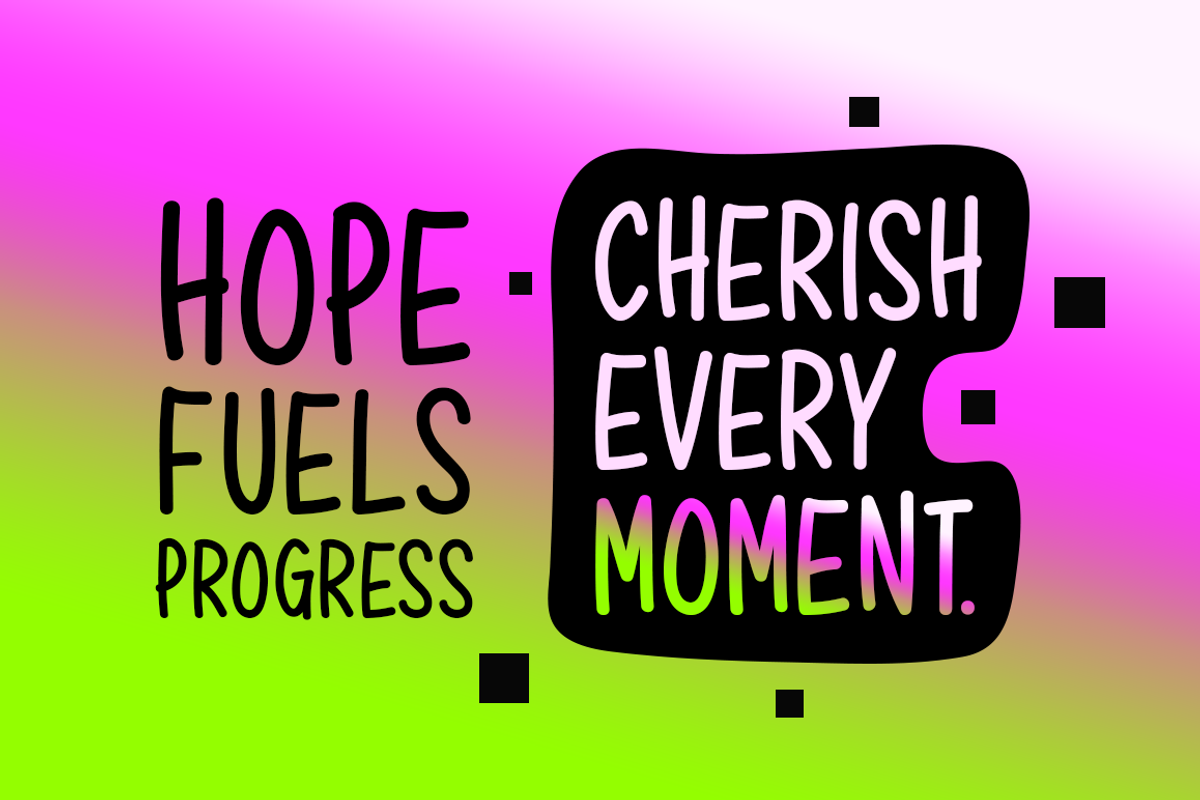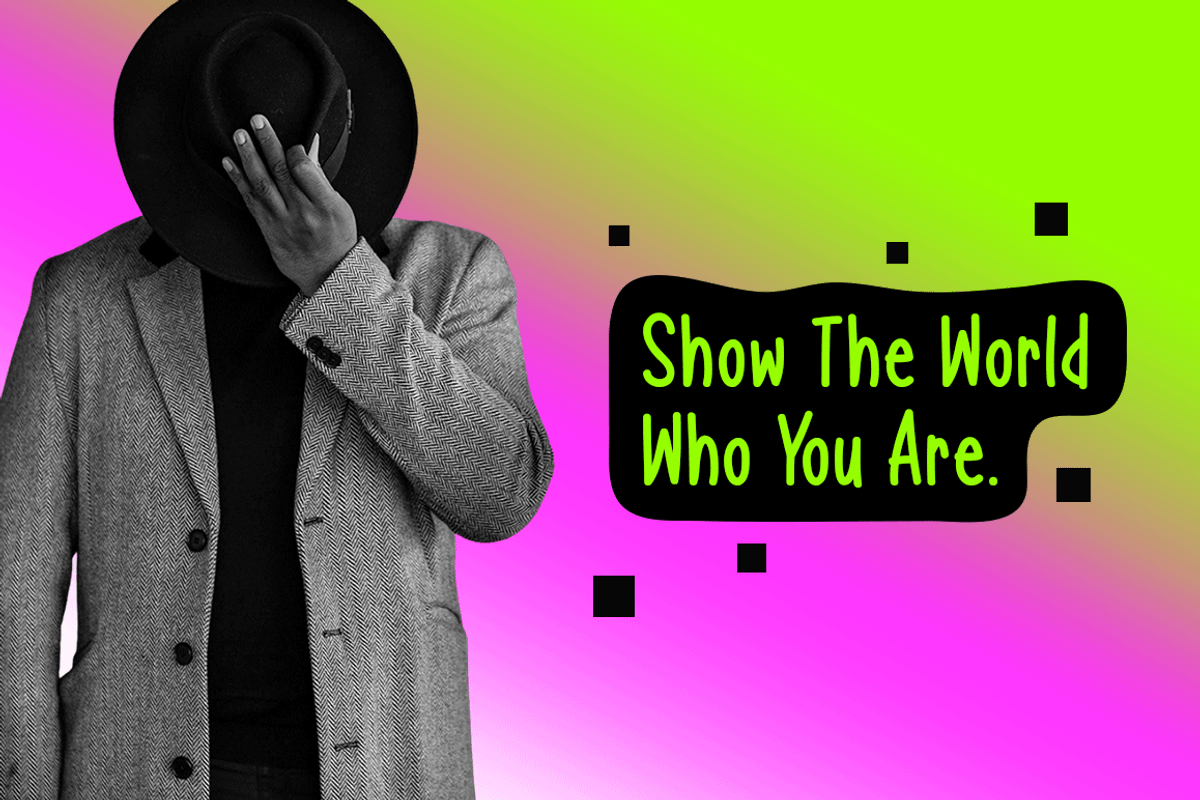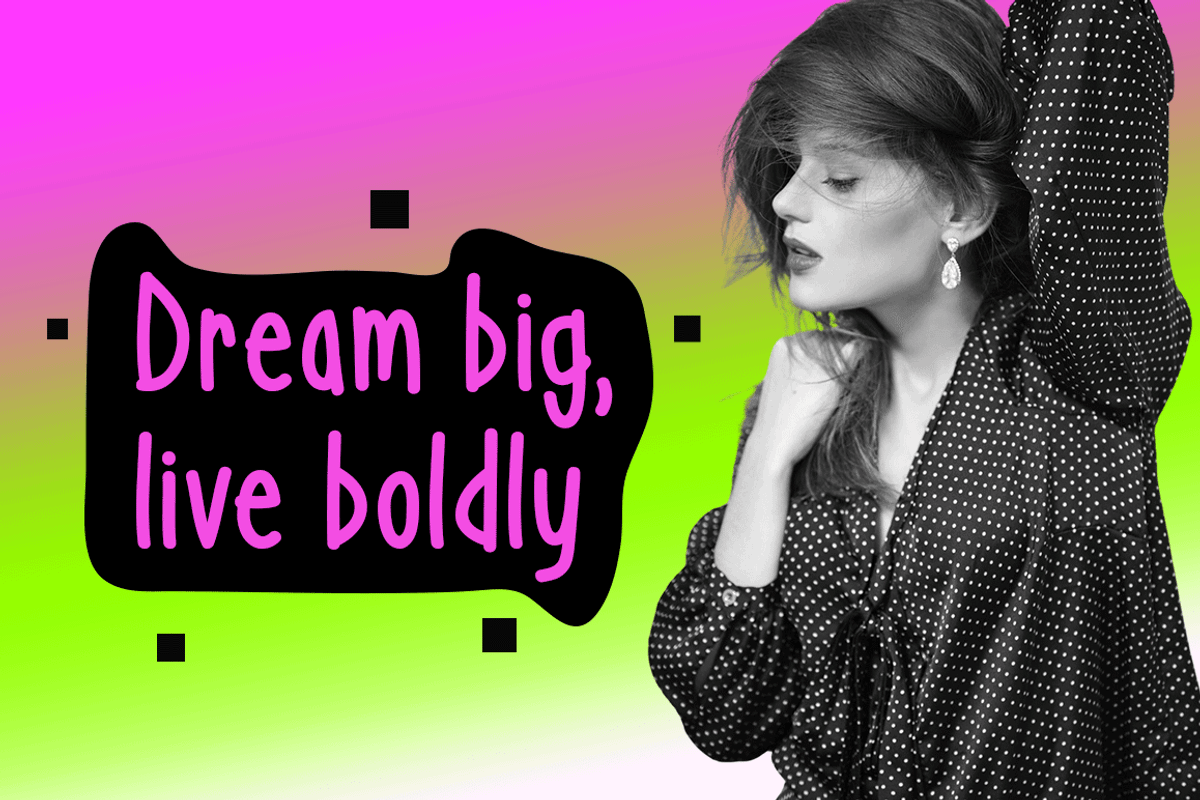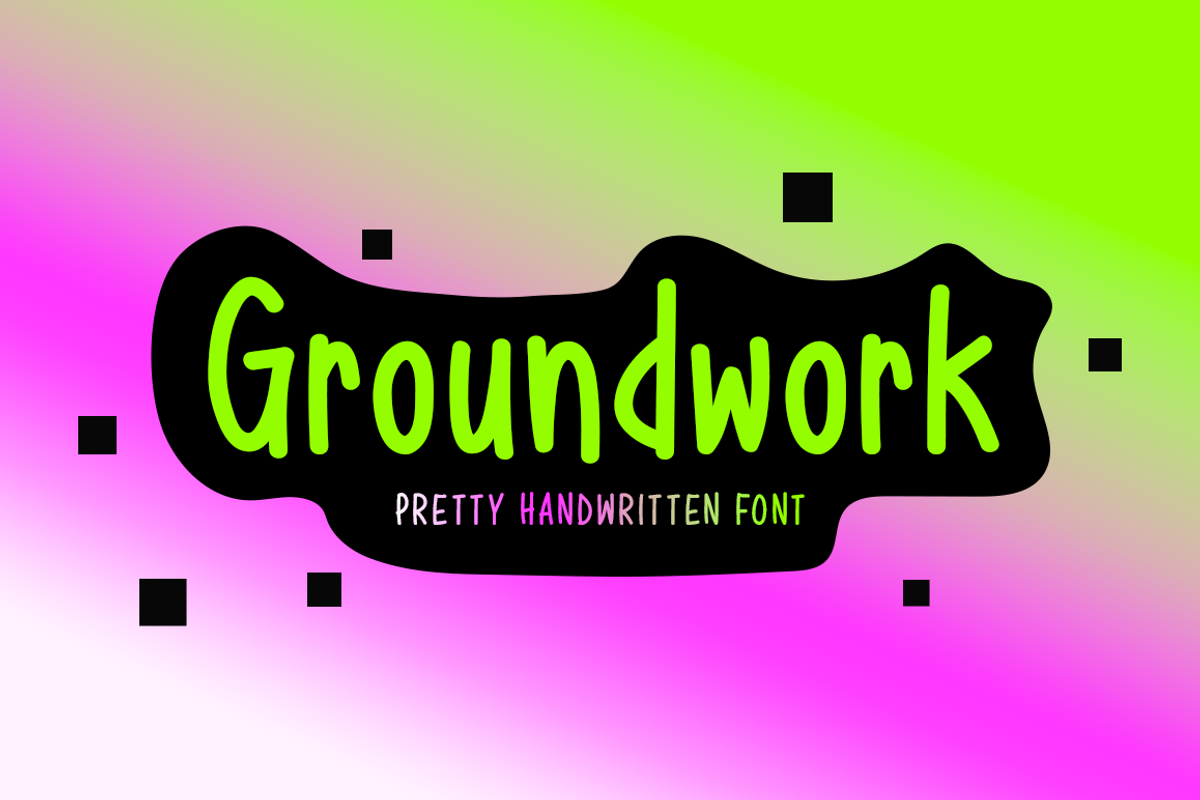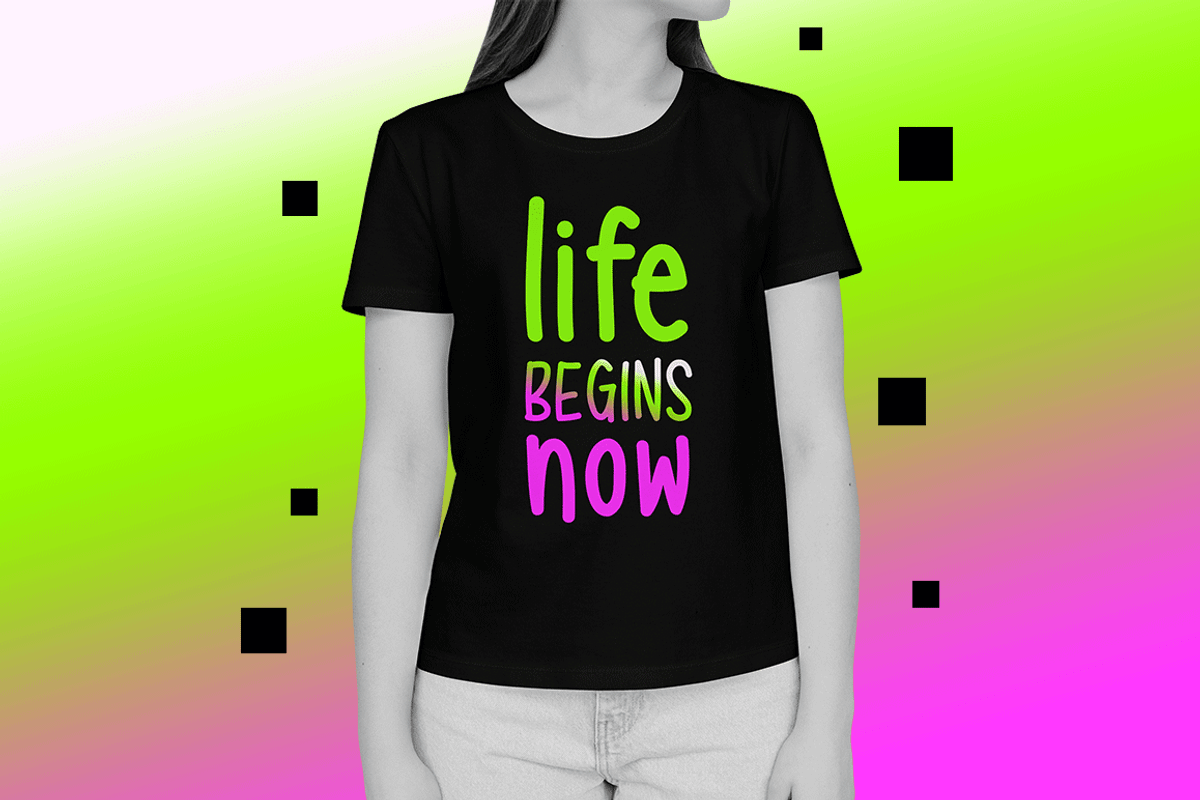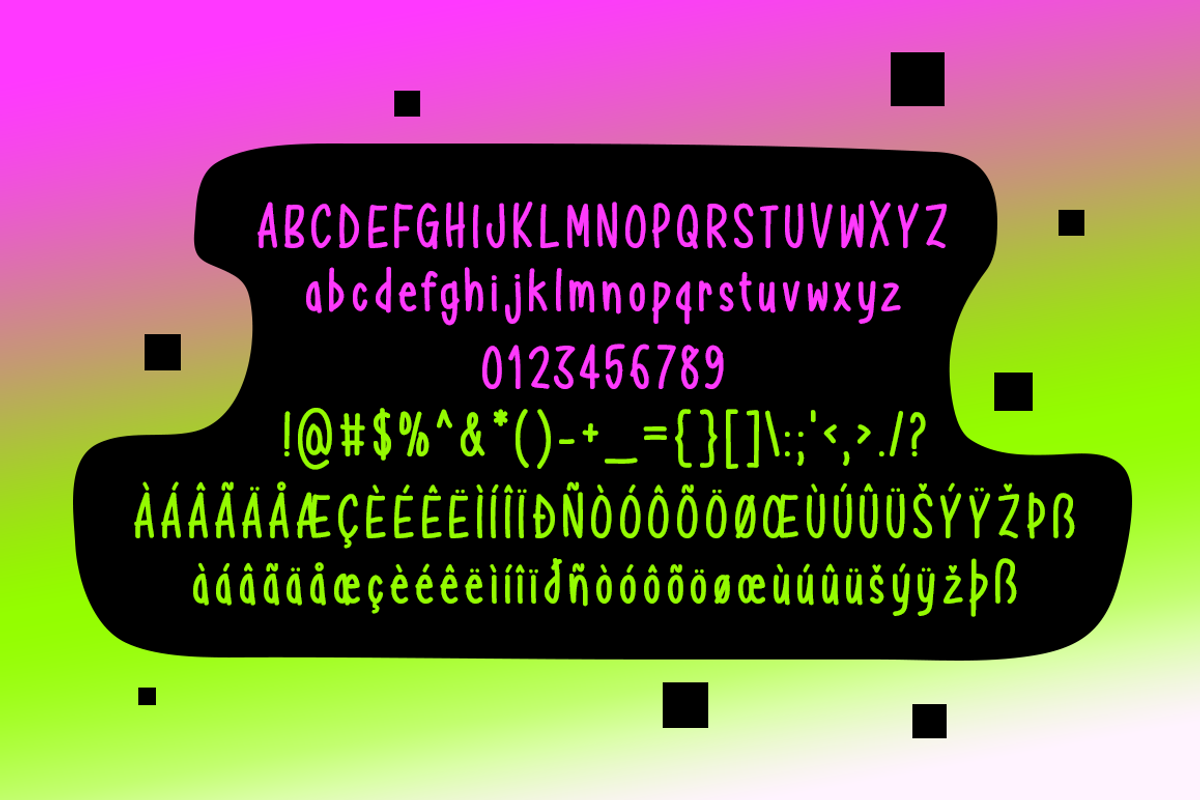
Groundwork Typeface
Introducing Groundwork!
Groundwork is a beautifully designed, brand-new handwritten font that captures the essence of elegance and creativity. This versatile font is perfect for a wide variety of projects, including stationery, logos, t-shirts, print materials, website headers, flyers, album covers, and even picture frames, making it a great choice for both digital and print design needs.
Includes a range of multilingual support